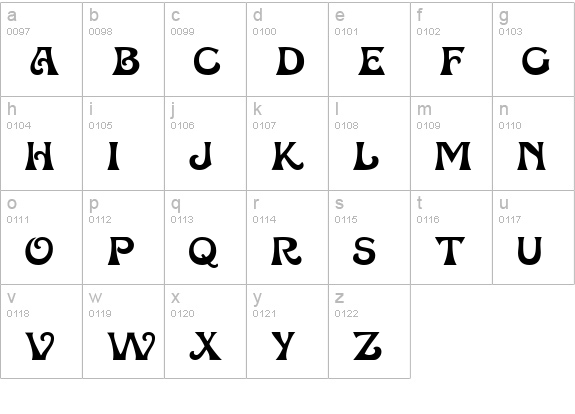
Pasdenom Font Details
Introducing Pasdenom, a stunningly unique font that effortlessly blends modern aesthetics with timeless elegance. With its captivating curves and graceful strokes, Pasdenom is sure to add a touch of sophistication to any design project. This versatile font is perfect for a wide range of applications, from branding and logos to invitations and editorial design. Its clean and legible letterforms make it easy to read, while its subtle details and stylish variations add an element of intrigue. One of the great features of Pasdenom is that it is freely available to download at FontsMarket.com. This means that you can elevate your designs without breaking the bank. Whether you're a professional designer or a passionate hobbyist, Pasdenom offers a high-quality typeface that won't drain your budget. Designed with meticulous attention to detail, Pasdenom is crafted to perfection. Its smooth curves and balanced proportions create a harmonious visual experience, making it a joy to work with. Whether used in small sizes or large headlines, Pasdenom retains its clarity and legibility, ensuring that your message is delivered with utmost precision. The extensive character set of Pasdenom allows for versatility and creativity in your designs. With multiple weights and styles to choose from, you have the freedom to experiment and find the perfect combination for your project. From thin and delicate to bold and impactful, Pasdenom has it all. So don't miss out on the opportunity to enhance your designs with this remarkable font. Download Pasdenom for free at FontsMarket.com and discover a world of endless typographic possibilities. Elevate your designs, captivate your audience, and make a lasting impression with Pasdenom.